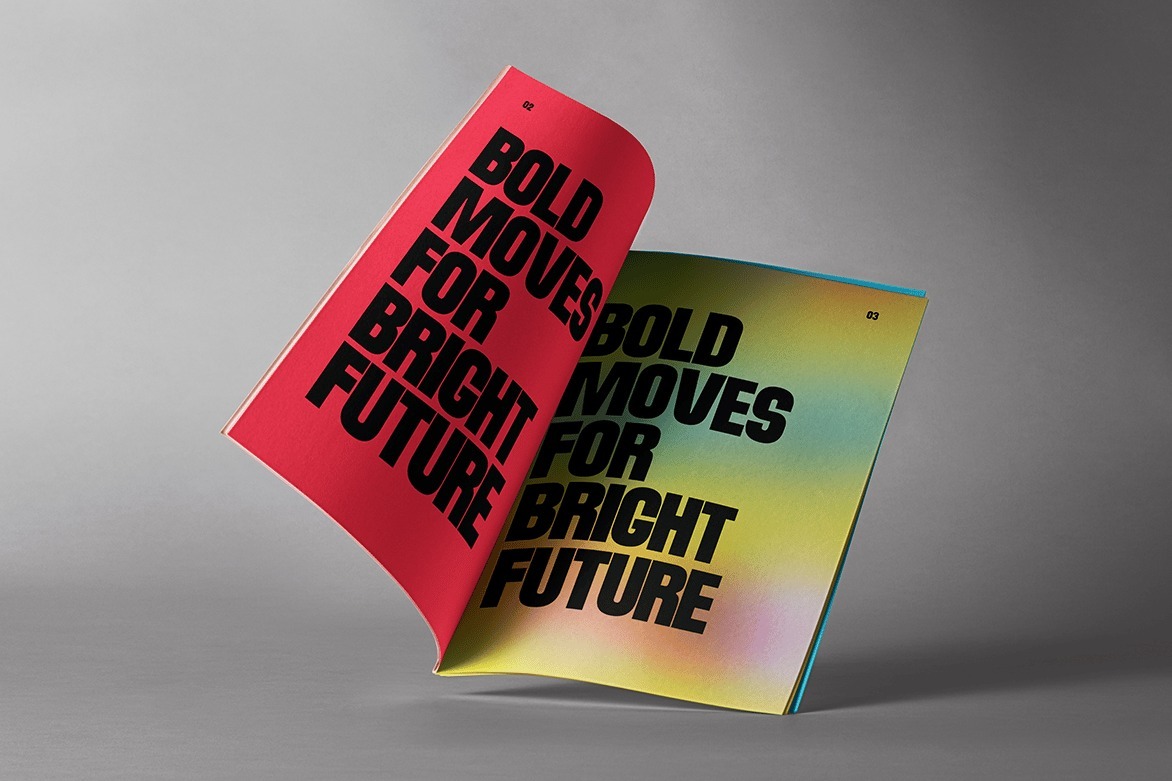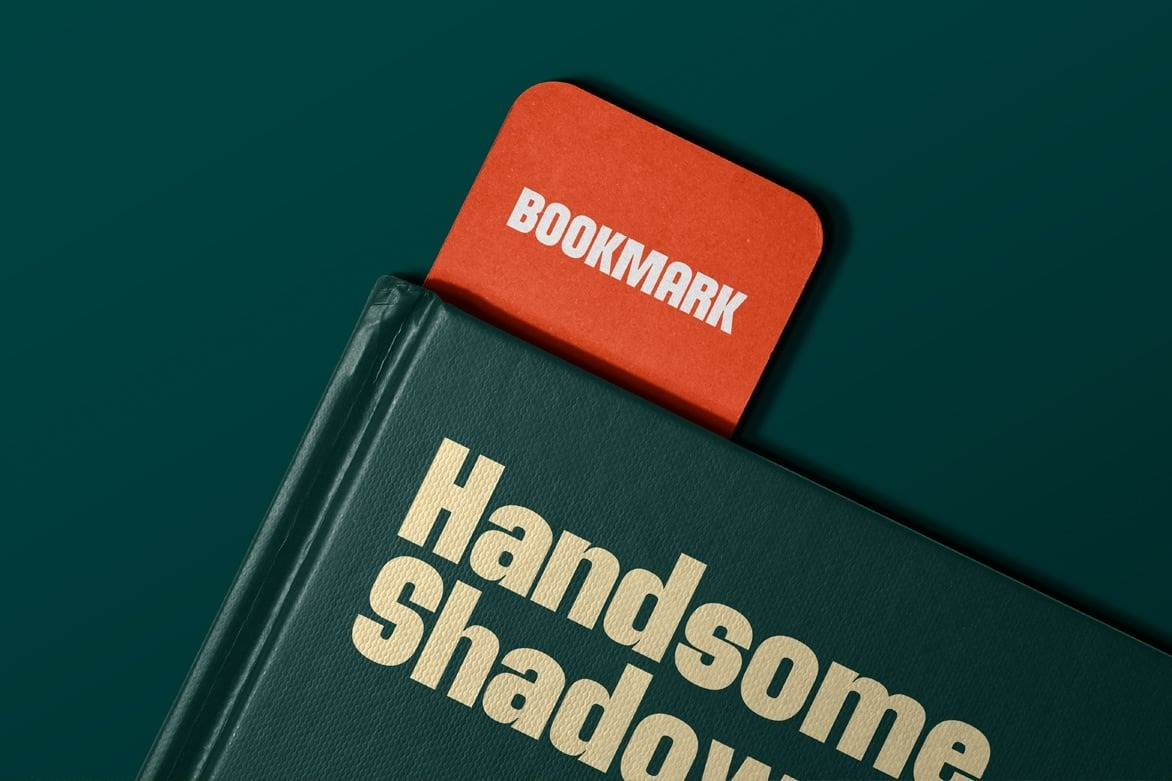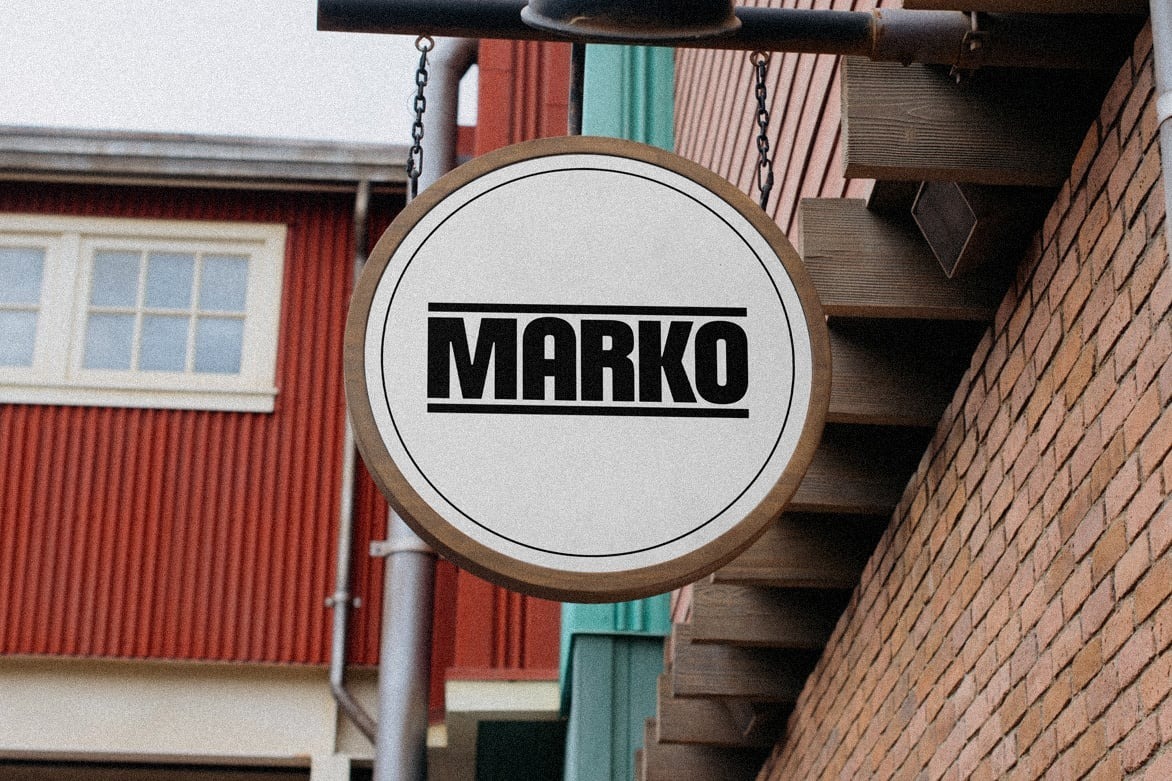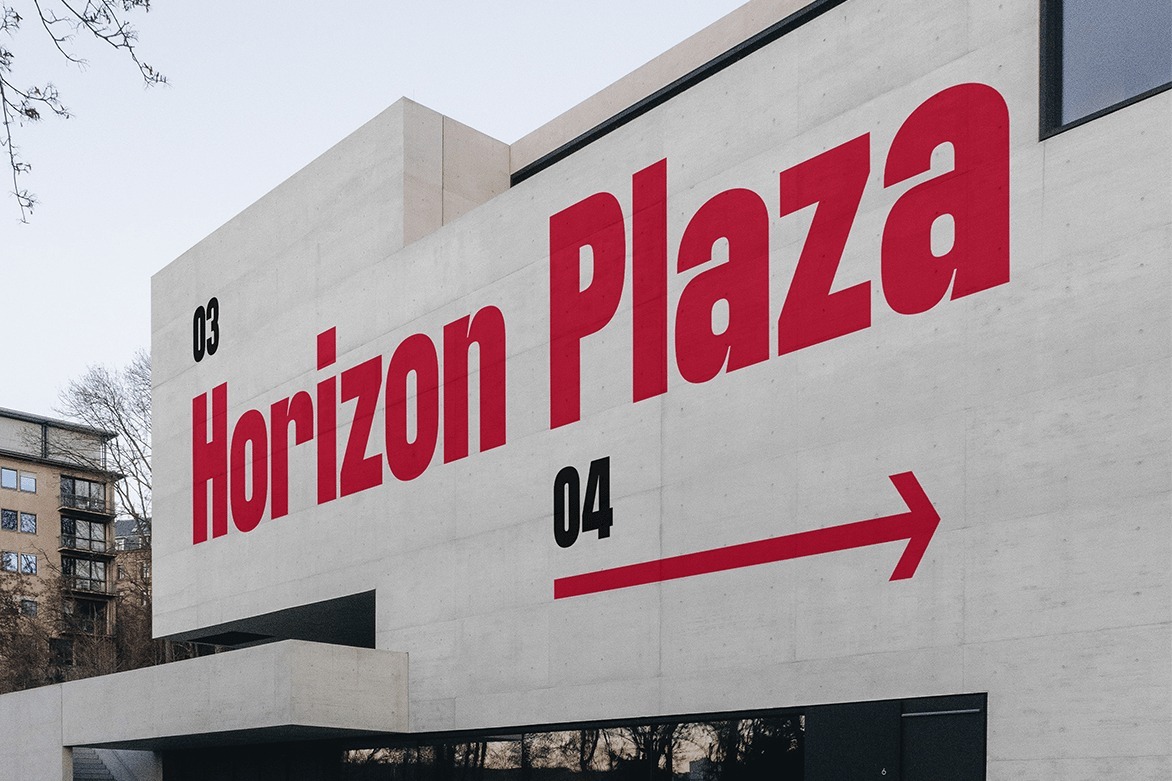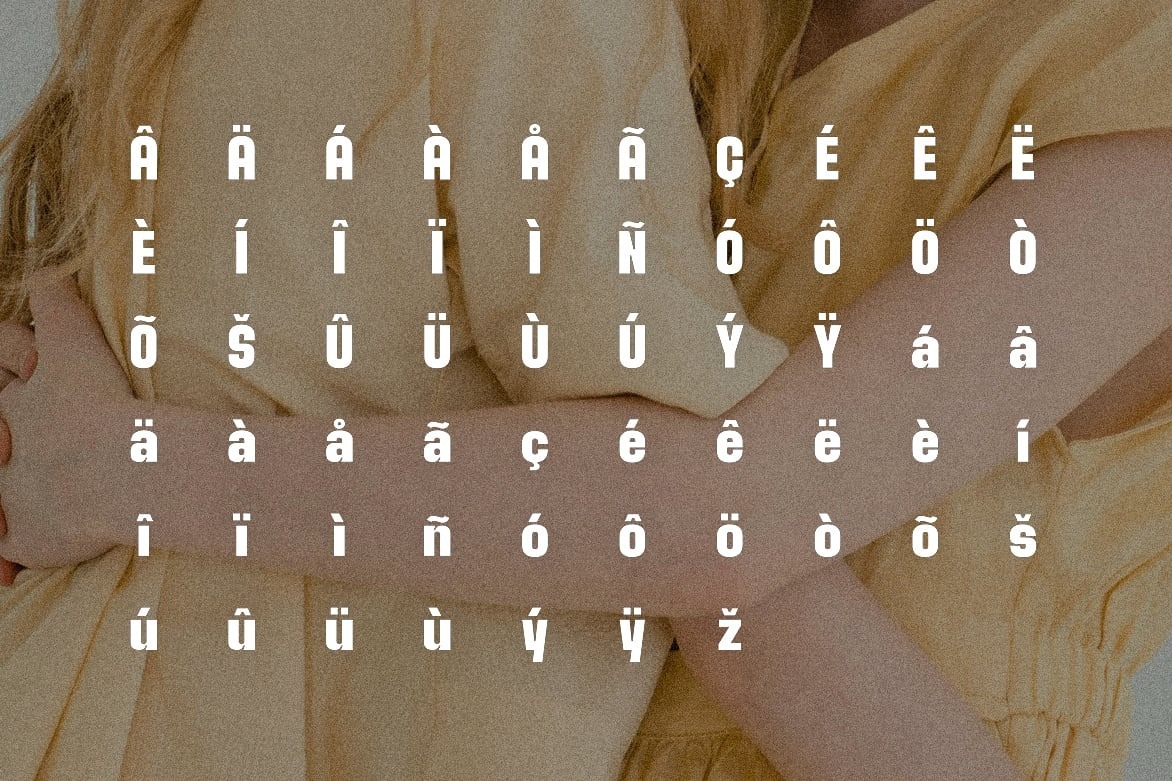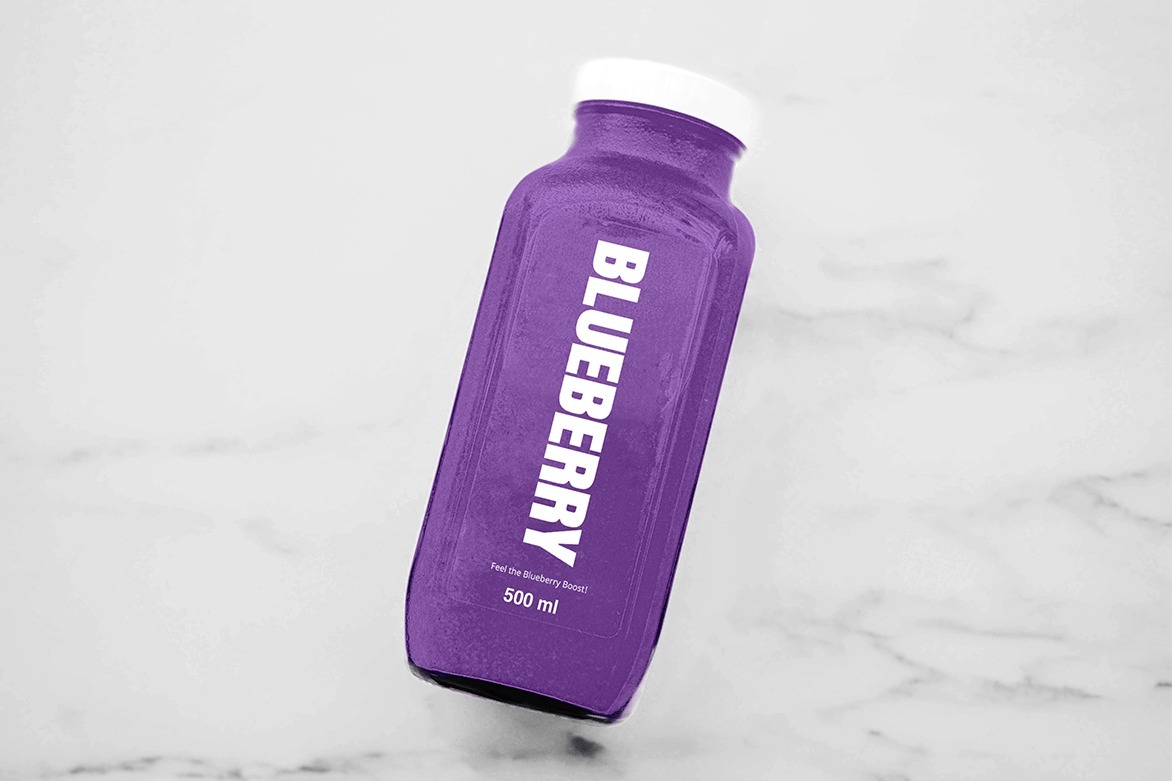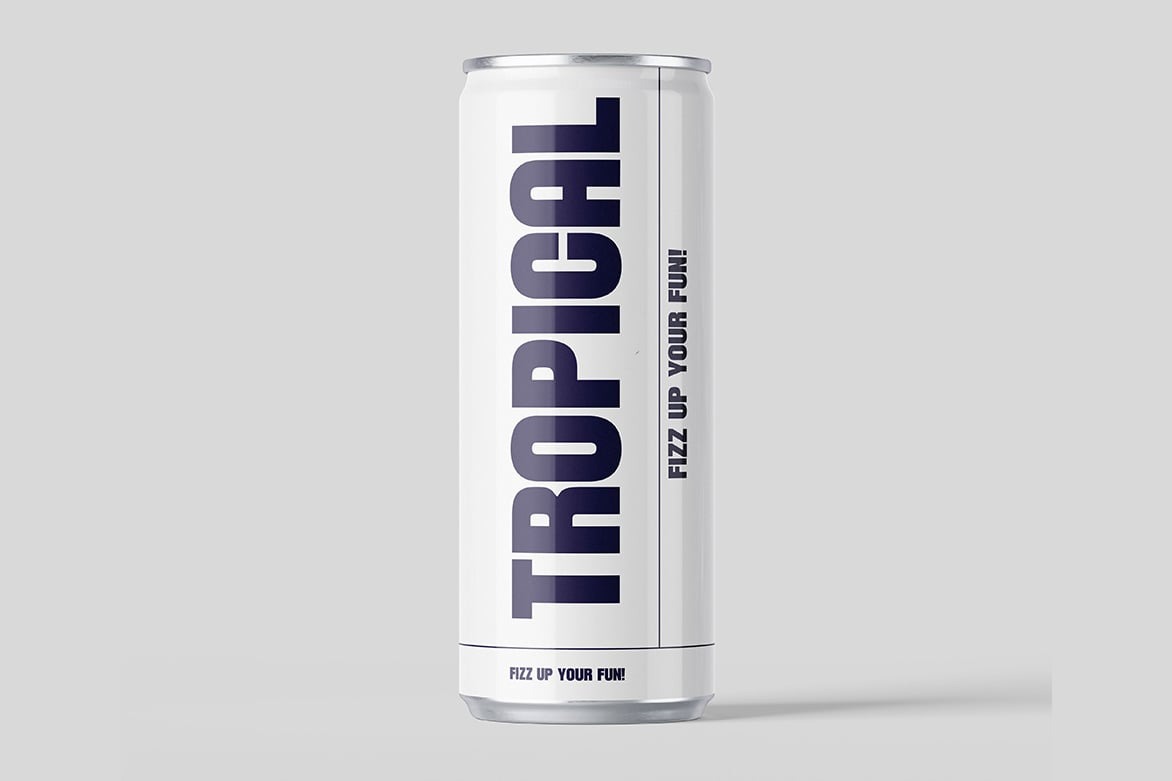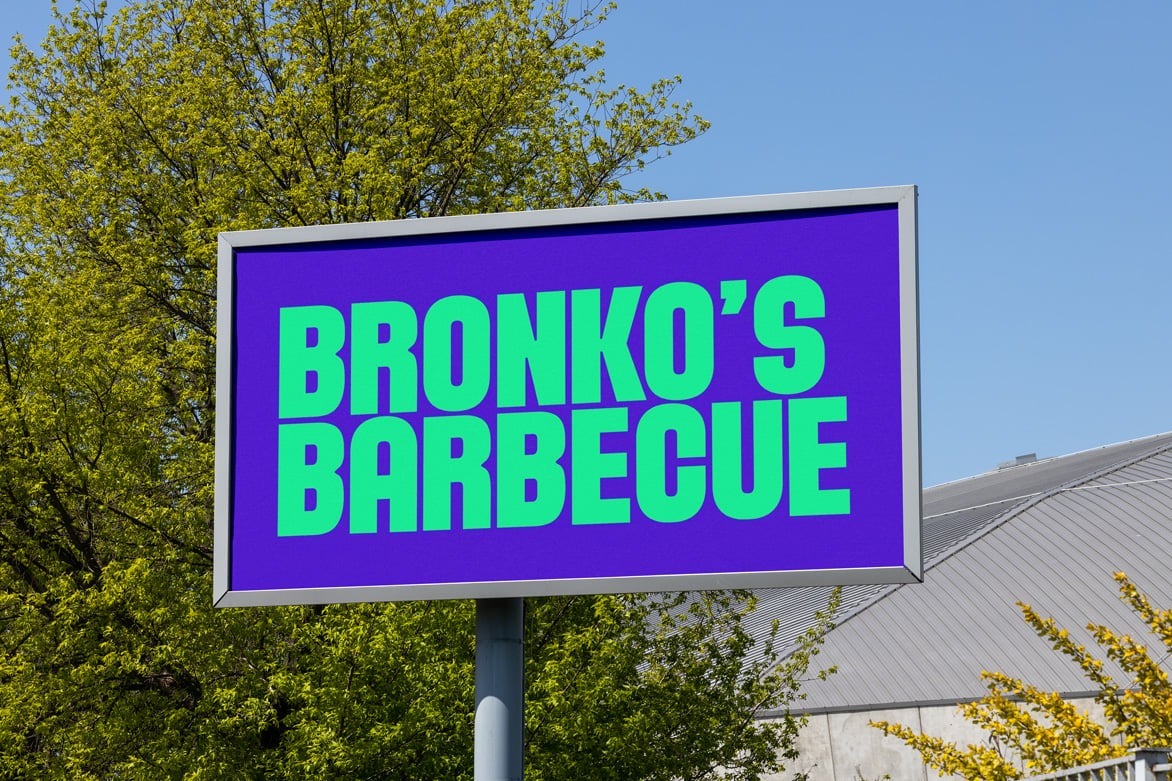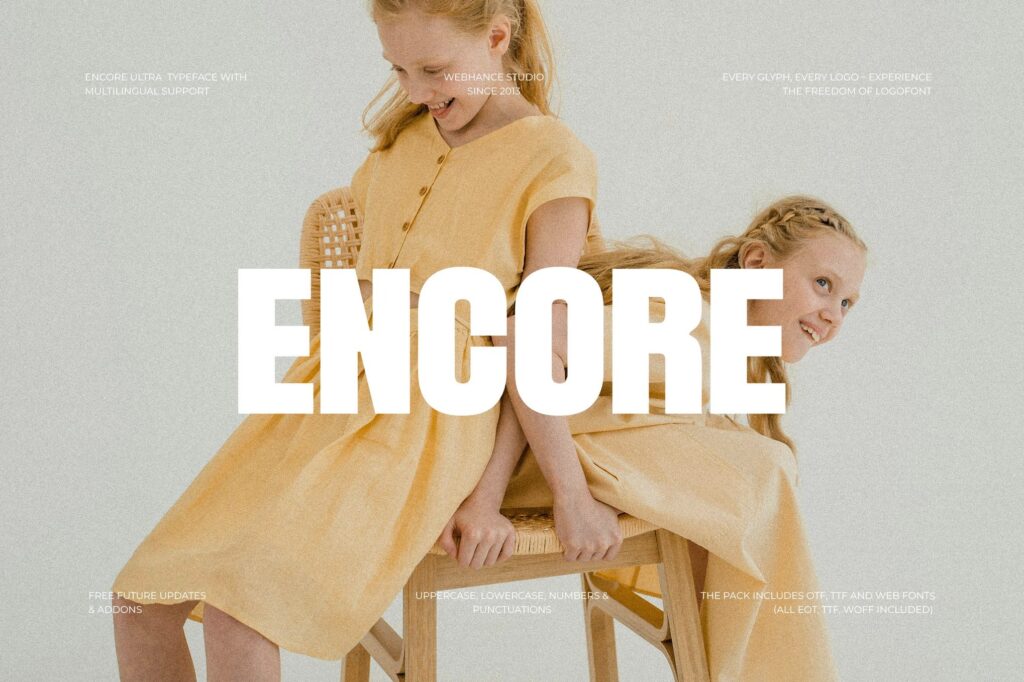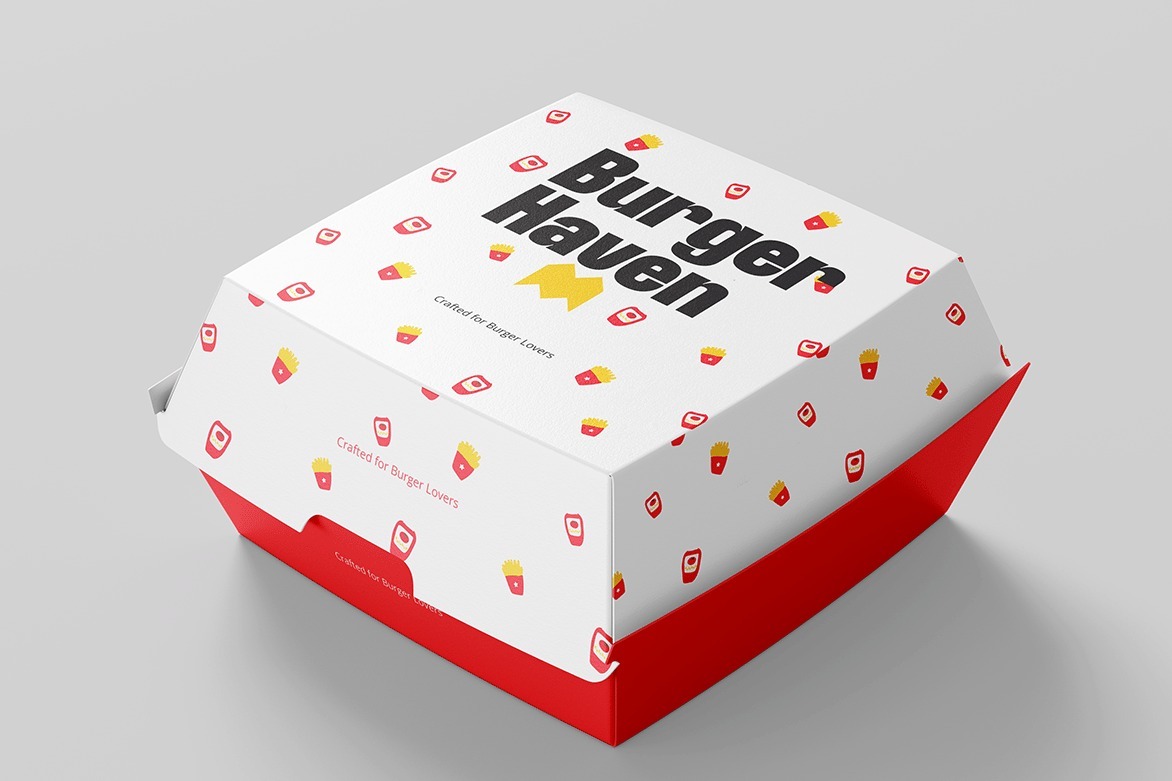
Encore Ultra – A Bold Display Typeface
We’re excited to announce the launch of our newest font family, Encore, designed to elevate your creative projects. Ultra is the first variant in this exciting new family, and it’s ready to make a powerful impact on your designs.
Encore Ultra is the latest creation from Webhance Studio, a bold display font that delivers high impact with a modern, striking design. Perfect for making bold statements, this font features strong lines and powerful forms that ensure it stands out across a variety of platforms. Whether you’re designing for branding, fashion, or social media, Encore Ultra’s sleek style adds an eye-catching touch to any project.
Its bold, dynamic presence makes it ideal for Instagram and YouTube thumbnails, posters, headlines, and other creative applications. With its sharp, clean lines, Encore Ultra is designed to captivate attention and bring a contemporary edge to your design work.
Encore Ultra supports multiple languages, making it ideal for international branding and global design needs.